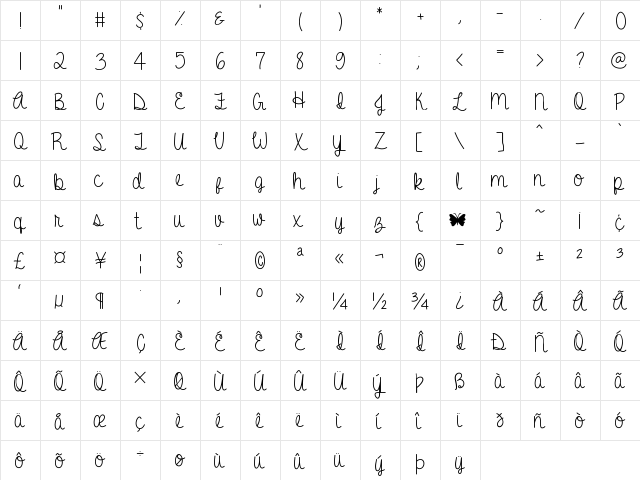
AGentleTouch Medium
Design Context for AGentleTouch Typeface
AGentleTouch is a composed and adaptable typeface that performs quietly and consistently across a wide range of design contexts.